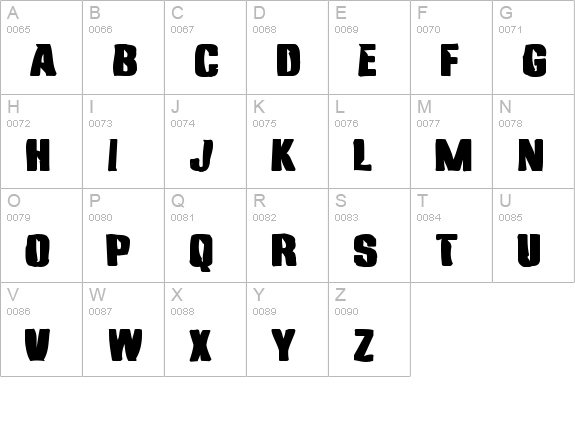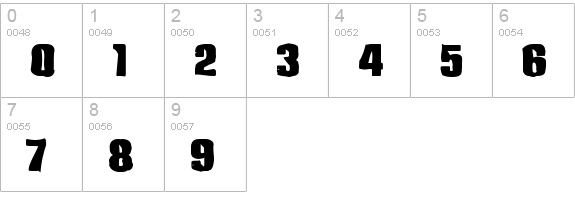
Anklepants Ink Font Details
Anklepants Ink font is a quirky and playful typeface that adds a touch of whimsy to any project. With its unique design and irregular shapes, this font is perfect for creating eye-catching designs that stand out from the crowd. The fluid strokes and organic feel of Anklepants Ink make it a versatile choice for a variety of creative projects. Best of all, Anklepants Ink font is completely free! You can download it at FontsMarket.com and start using it in your designs right away. Whether you're working on a poster, logo, or social media graphic, Anklepants Ink is sure to add a fun and dynamic element to your work. Don't miss out on this fantastic font - download it today and let your creativity shine!